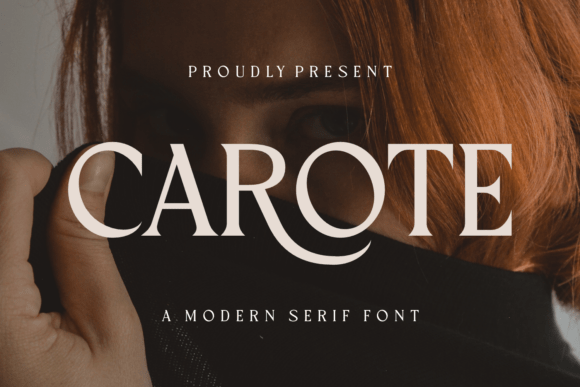
Introducing Carote Font: The Epitome of Modern Serif Elegance
In the realm of typography, few fonts manage to strike a balance between classic sophistication and contemporary style. However, Carote font stands out as a beacon of modern serif elegance, boasting a bold yet graceful personality that elevates any design project. This exquisite font is designed to bring refinement and character to branding, fashion editorials, logos, and luxury packaging, making it a versatile and sought-after choice for designers worldwide.
The Distinctive Features of Carote Font
Carote’s unique charm lies in its elegant curves, sharp serifs, and distinctive letter details. Each character is meticulously crafted to exude a sense of luxury and sophistication, making it perfect for high-end branding and editorial projects. The font’s modern serif design ensures that it remains approachable and contemporary, while its classic undertones provide a sense of timelessness and elegance.
- Elegant Curves: Carote’s curves are fluid and refined, adding a touch of sophistication to any text.
- Sharp Serifs: The font’s serifs are crisp and sharp, providing a clear and precise reading experience.
- Unique Letter Details: Each character features distinctive details that set Carote apart from other serif fonts.
Applications of Carote Font
Carote’s versatility is one of its most compelling attributes. This font can be used across various design projects, including:
- Branding: Carote’s elegant and sophisticated design makes it perfect for luxury brands looking to establish a refined identity.
- Fashion Editorials: The font’s modern serif design and elegant curves make it a popular choice for fashion magazines and editorials.
- Logos: Carote’s unique character and sophistication make it an excellent choice for logos that require a touch of elegance.
- Luxury Packaging: The font’s refined and classic design makes it suitable for luxury packaging, adding a touch of sophistication to any product.
The Benefits of Using Carote Font
Choosing Carote font for your design project comes with numerous benefits, including:
- Improved Readability: Carote’s clear and precise design ensures that your text is easy to read, making it perfect for editorial projects.
- Enhanced Aesthetic Appeal: The font’s elegant curves and sharp serifs add a touch of sophistication to any design, making it perfect for luxury brands and high-end projects.
- Versatility: Carote can be used across various design projects, making it a valuable addition to any designer’s font library.
In conclusion, Carote font is a modern serif font that offers a perfect blend of classic sophistication and contemporary style. Its elegant curves, sharp serifs, and unique letter details make it a standout choice for designers looking to add refinement and character to their projects. Whether you’re working on a luxury branding project, a fashion editorial, or a high-end packaging design, Carote is an excellent choice that is sure to impress.